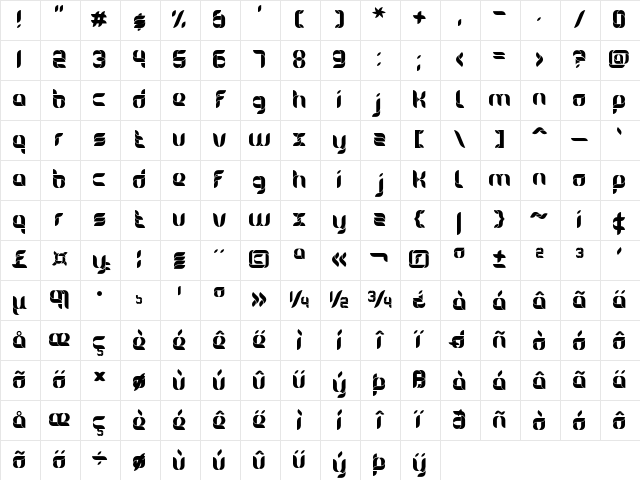
Wexler Regular
Wexler Family
Complete Wexler Regular glyph index. Displaying only characters natively supported by Wexler Regular font.
Design Context for Wexler
Wexler is a composed and adaptable typeface that performs quietly and consistently across a wide range of design contexts.